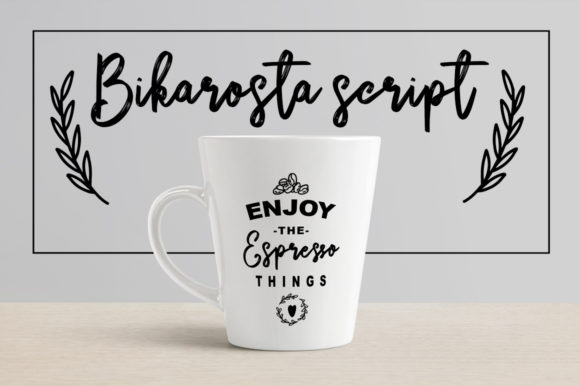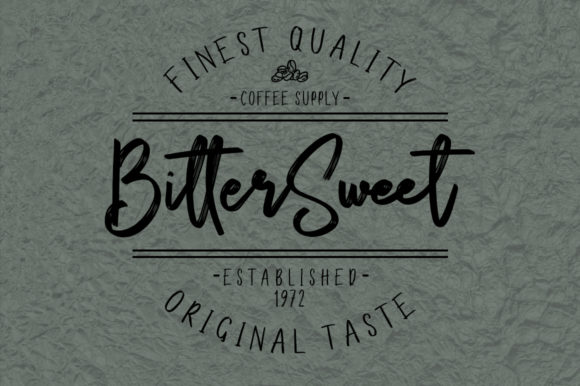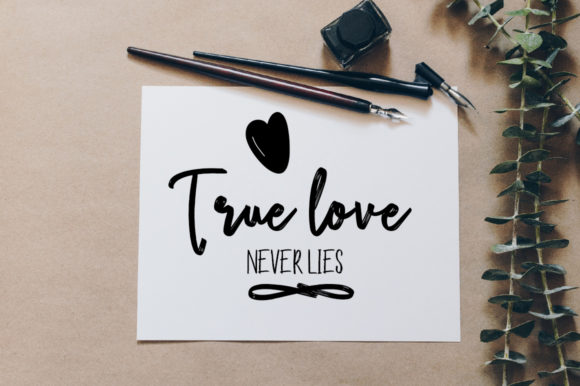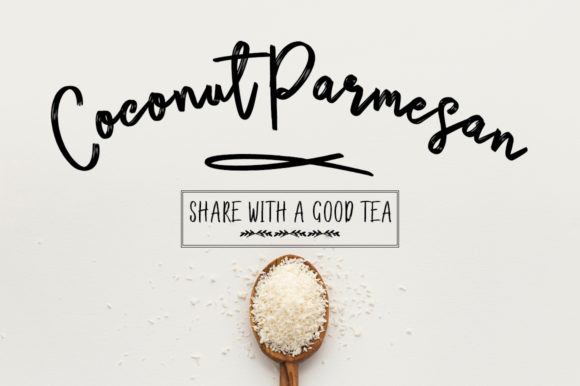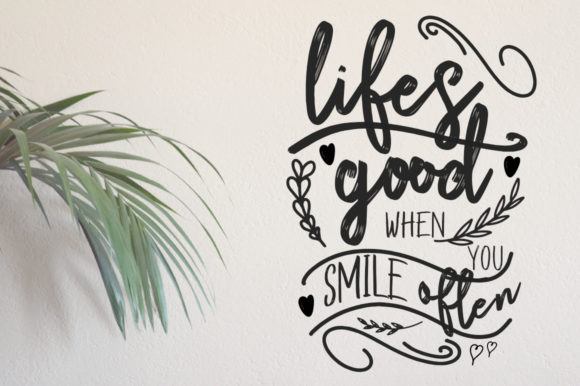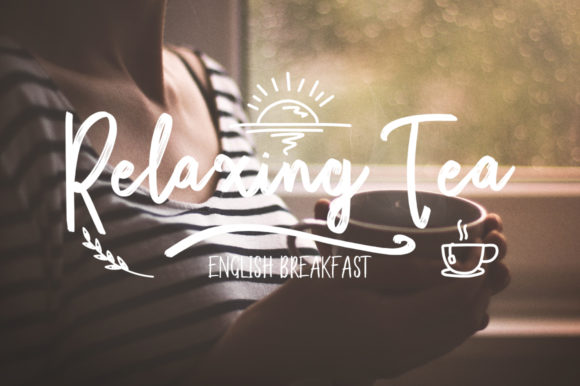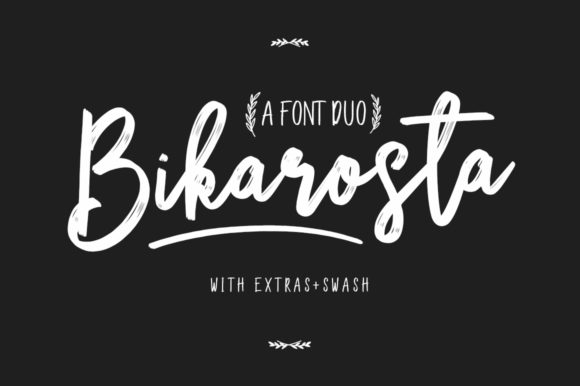
Bikarosta Font: The Sweet and Relaxed Brushed Handwritten Font for Your Creative Projects
Are you looking for a font that can add a touch of sweetness and relaxation to your creative projects? Look no further than Bikarosta, a beautiful brushed handwritten font that is incredibly versatile and perfect for a wide range of applications. In this article, we’ll take a closer look at Bikarosta and explore its features, uses, and benefits for designers and crafters.
What is Bikarosta Font?
Bikarosta is a sweet and relaxed brushed handwritten font that is designed to add a personal touch to your creative projects. Its unique and elegant style makes it perfect for a variety of applications, from wedding invitations and stationary art to social media posts and more. With its smooth and flowing lines, Bikarosta is sure to capture the attention of your audience and leave a lasting impression.
Features of Bikarosta Font
Bikarosta font comes with a range of features that make it an ideal choice for designers and crafters. Some of its key features include:
- Incredibly versatile: Bikarosta is a highly versatile font that can be used for a wide range of applications, from formal to informal projects.
- Sweet and relaxed style: The font’s sweet and relaxed style makes it perfect for creating beautiful and elegant designs.
- Brushed handwritten look: Bikarosta’s brushed handwritten look gives it a unique and personal touch that sets it apart from other fonts.
- Easily readable: The font is easily readable, making it perfect for use in body text and other applications where readability is important.
Uses of Bikarosta Font
Bikarosta font can be used for a wide range of creative projects, including:
- Wedding invitations: Bikarosta is perfect for creating beautiful and elegant wedding invitations that will set the tone for your special day.
- Stationary art: The font can be used to create stunning stationary art, including greeting cards, thank-you cards, and more.
- Social media posts: Bikarosta is great for creating eye-catching social media posts that will grab the attention of your followers.
- Branding and packaging: The font can be used for branding and packaging applications, including logos, labels, and more.
Benefits of Using Bikarosta Font
There are many benefits to using Bikarosta font in your creative projects. Some of the key benefits include:
- Unique and elegant style: Bikarosta’s unique and elegant style will help your designs stand out from the crowd.
- Incredibly versatile: The font’s versatility makes it perfect for use in a wide range of applications.
- Easily readable: Bikarosta is easily readable, making it perfect for use in body text and other applications where readability is important.
- Time-saving: The font can save you time and effort, as it can be used to create a wide range of designs without having to spend hours designing from scratch.
Tips for Using Bikarosta Font
Here are some tips for using Bikarosta font in your creative projects:
- Use it for headlines and titles: Bikarosta is perfect for use in headlines and titles, where its unique and elegant style can really shine.
- Pair it with other fonts: The font can be paired with other fonts to create a unique and interesting look.
- Experiment with different colors: Bikarosta looks great in a range of colors, so don’t be afraid to experiment and find the perfect color for your design.
- Use it consistently: To create a cohesive look, use Bikarosta consistently throughout your design.
Bikarosta font is a beautiful and versatile brushed handwritten font that is perfect for a wide range of creative projects. Its unique and elegant style makes it perfect for adding a touch of sweetness and relaxation to your designs. With its smooth and flowing lines, Bikarosta is sure to capture the attention of your audience and leave a lasting impression. Whether you’re a designer or crafter, Bikarosta is a great choice for anyone looking to add a personal touch to their creative projects.